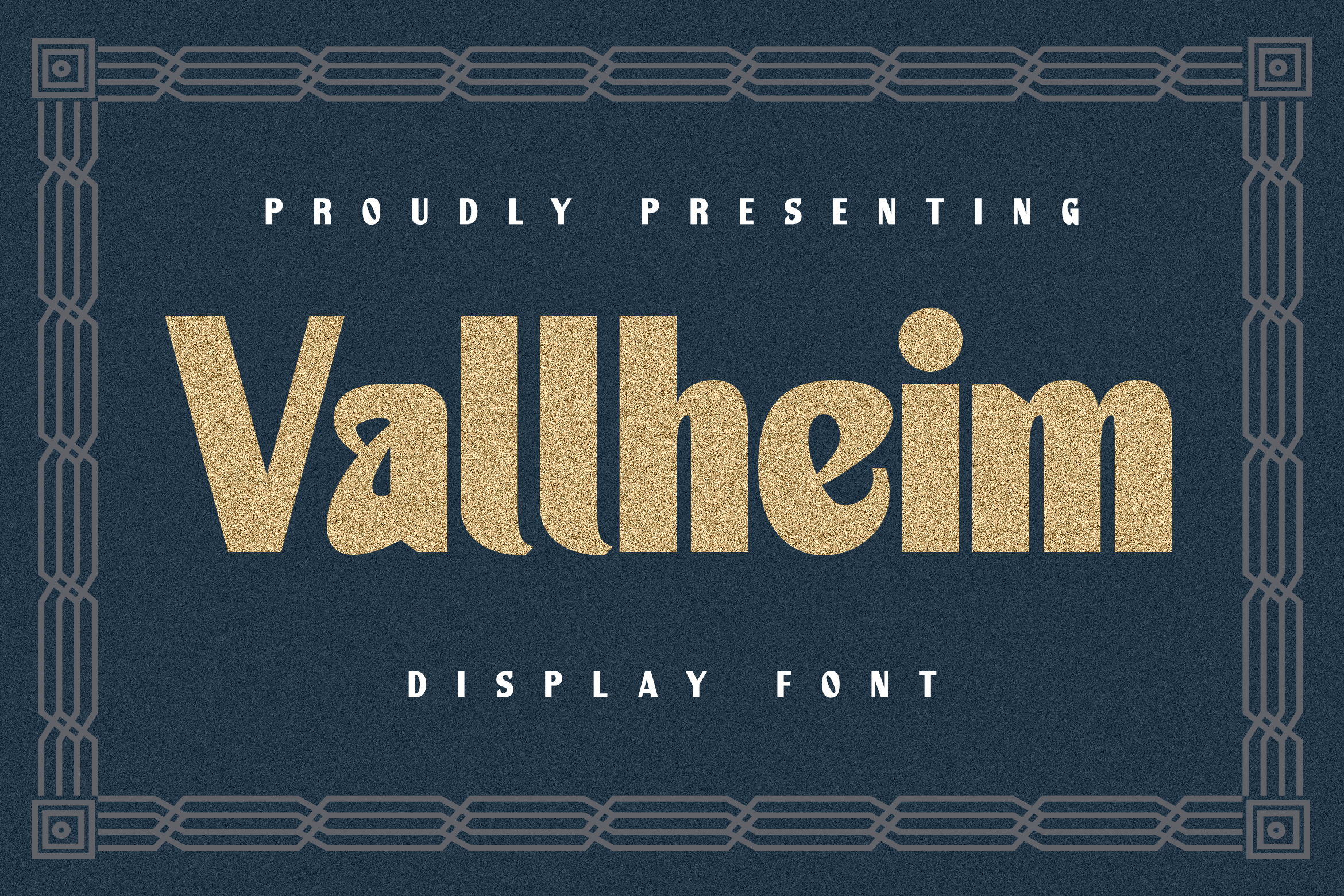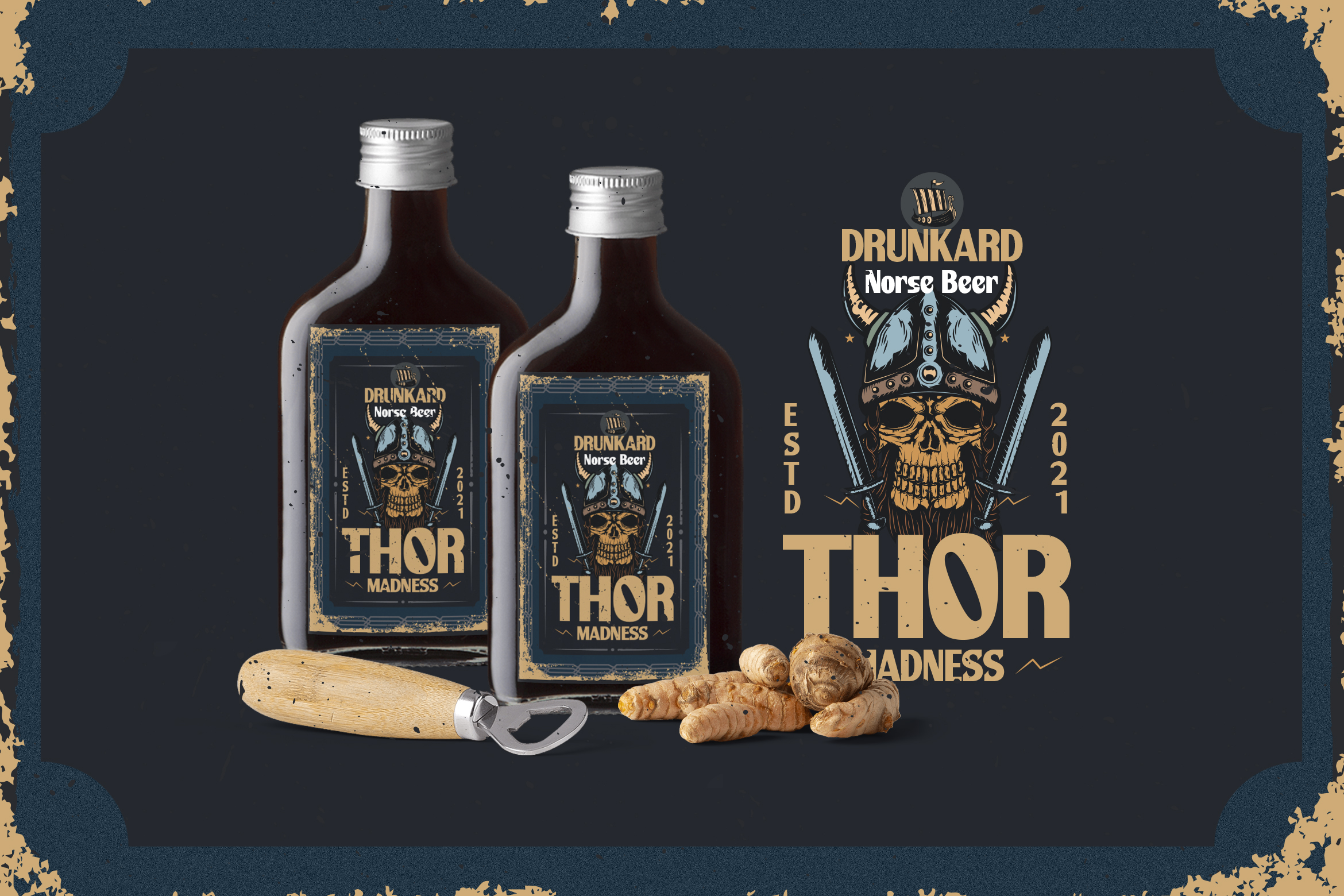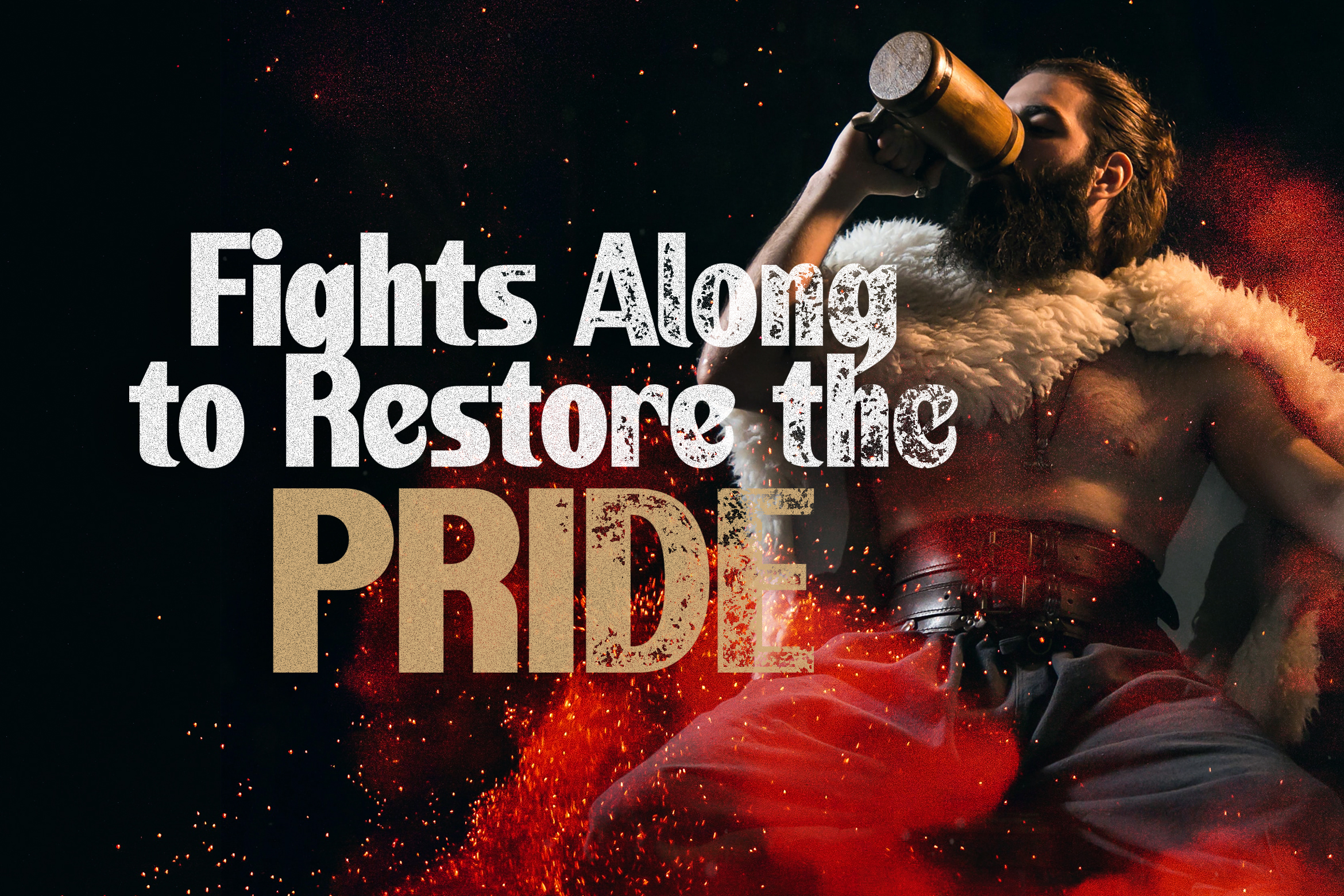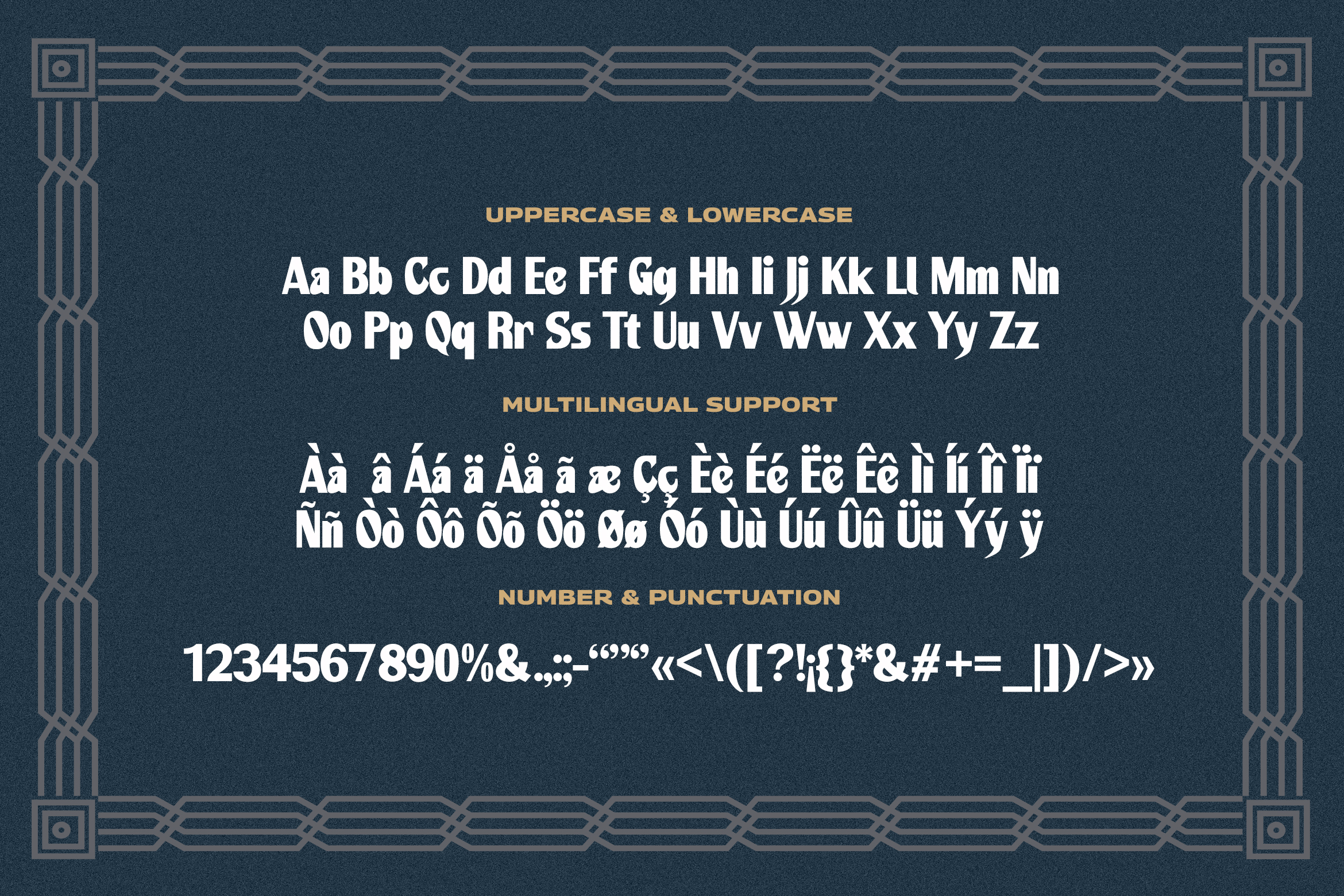
Vallheim is a bold display font inspired by Norse mythology and Viking aesthetics. With its sharp, commanding letterforms and rugged texture, this typeface evokes the spirit of ancient warriors, old legends, and the untamed wilderness. It’s perfect for titles that need a touch of historical strength and primal energy.
Designed for impact, Vallheim comes with uppercase and lowercase characters, numerals, punctuation, and multilingual support. It works beautifully on posters, beer labels, game titles, apparel, and anything that seeks to embody strength, heritage, and mythic storytelling.
Vallheim